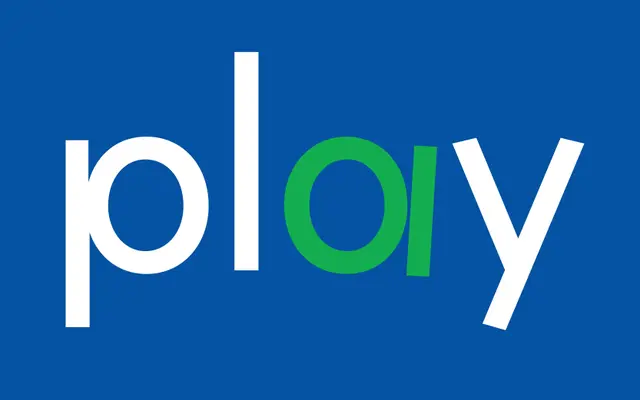
Sixten
NM Type · Noel Pretorius & María Ramos · 2023
A variable Latin typeface drawn from a child's pre-instructed letterforms, yielding shapes with runic and punk overtones across three width axes.
Designed by Noel Pretorius and María Ramos at NM Type, Sixten takes its cues from the pre-taught handwriting of a four-year-old, tracing unexpected connections between instinctive mark-making and early Phoenician and Greek letter shapes. The family spans fifteen static fonts across Narrow, Standard and Wide widths, each in five weights from Regular to Black, plus a variable font that shifts both width and weight axes simultaneously. Twelve stylistic sets enable dynamic combinations including mirror writing, flying small caps and flag caps, giving designers extensive scope to work against typographic convention.
Though it has Latin letterforms, Sixten's defining character comes from its deliberately unconventional, child-inspired skeleton and runic undertones, placing it firmly in the display/expressive category rather than conventional sans-serif.